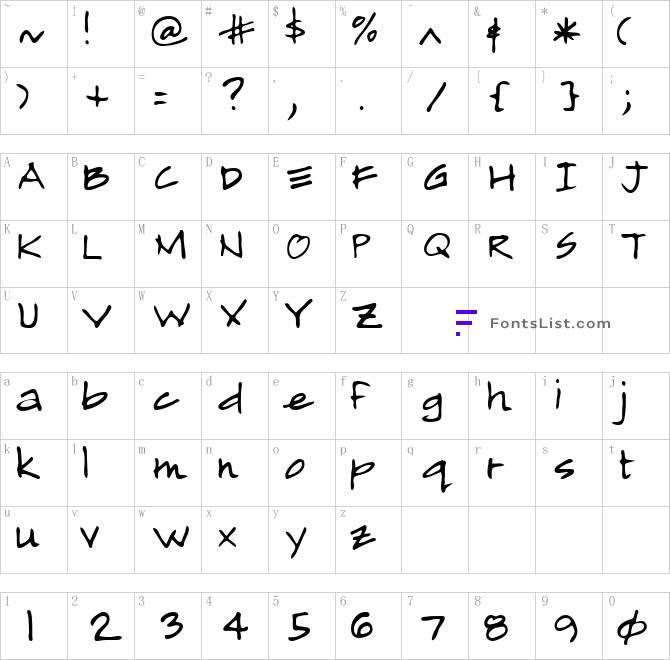
- Font Name:Almagro
Almagro-Regular.ttf is a very beautiful artistic font, Almagro-Regular.ttf is widely used in the design and printing of various books and pictures,Almagro-Regular.ttf has a strong visual impact,Almagro-Regular.ttf is a commonly used font in newspapers, magazines and books, and is used in posters, e-commerce Poster design, store design, logo design, font design and other fields.Almagro-Regular.